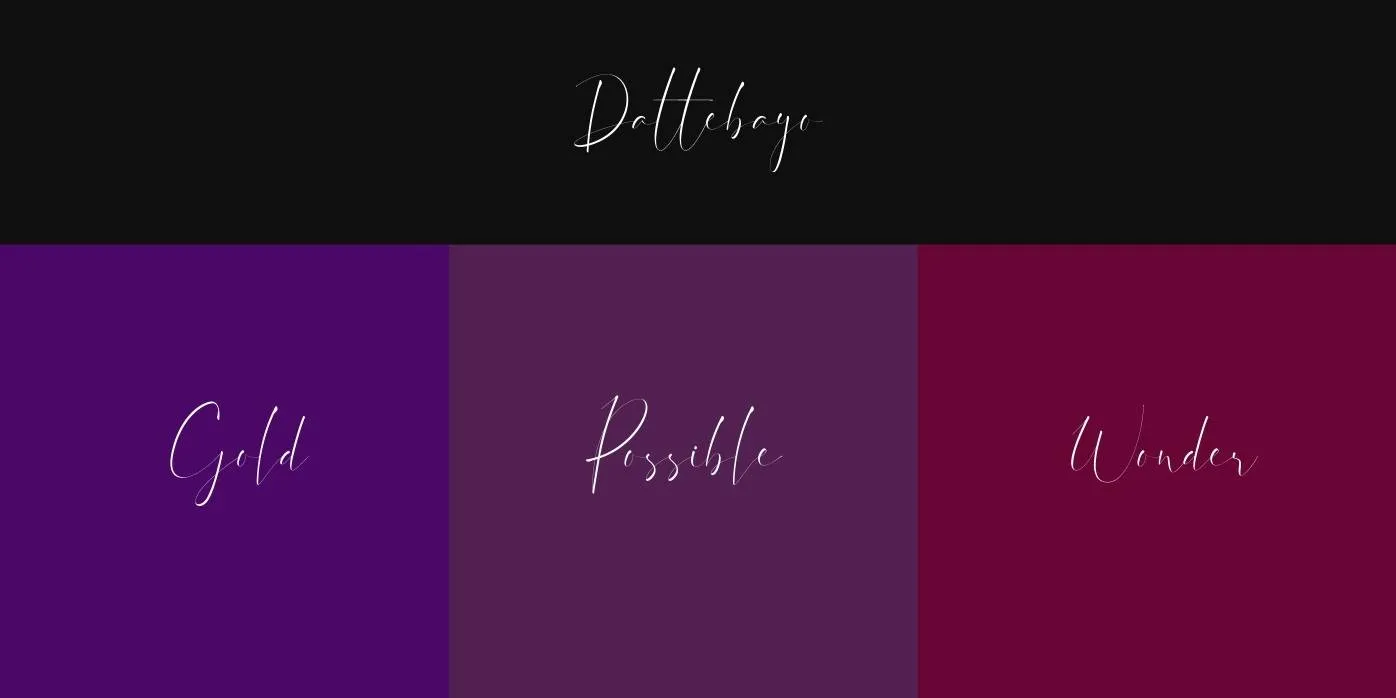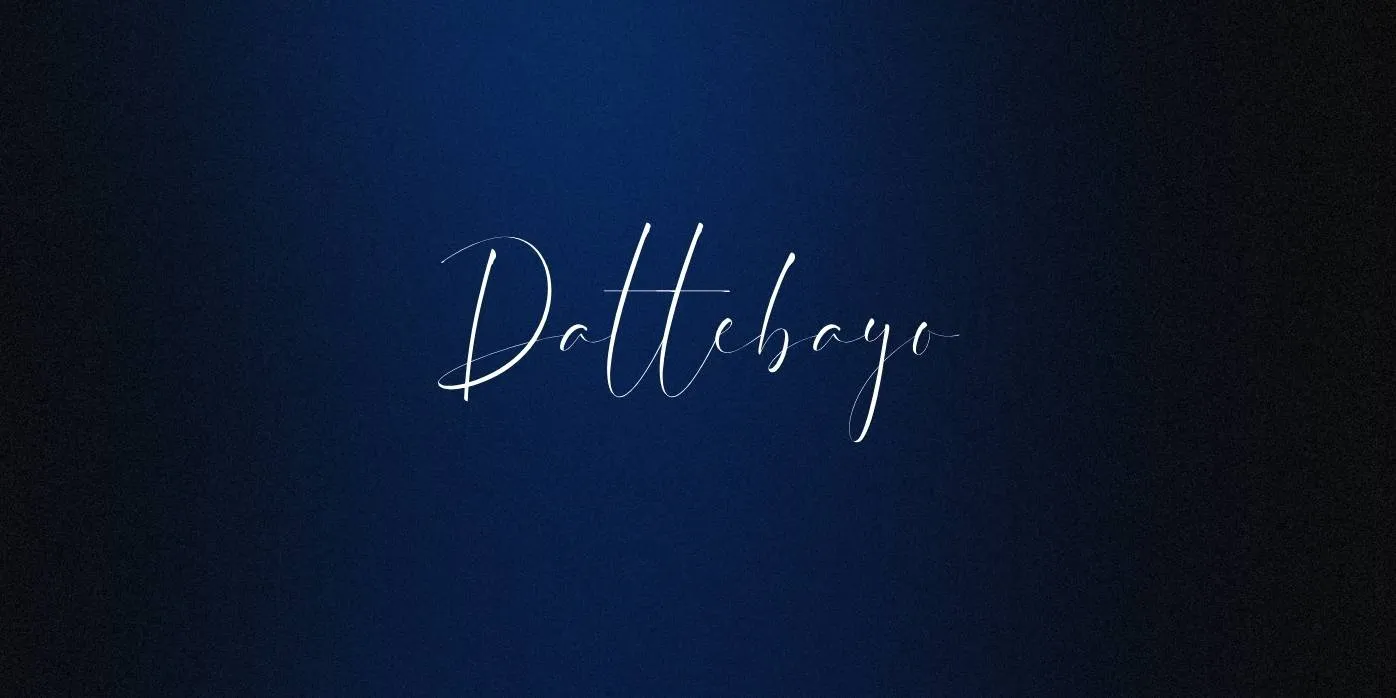
Dattebayo Font
In this post, we introduce you to a calligraphy typeface named Dattebayo Font. Angga Mahardika created this calligraphy Font. This is a main form of present-day Font but with cutting-edge design. It is donated for free by the Author.
This is the beneficial typeface including previous benefits. The characters of this typeface are thin due to its design looks energetic and sharp. This Font has 243 defined characters and 156 unique glyphs. The family of this texture includes three styles.